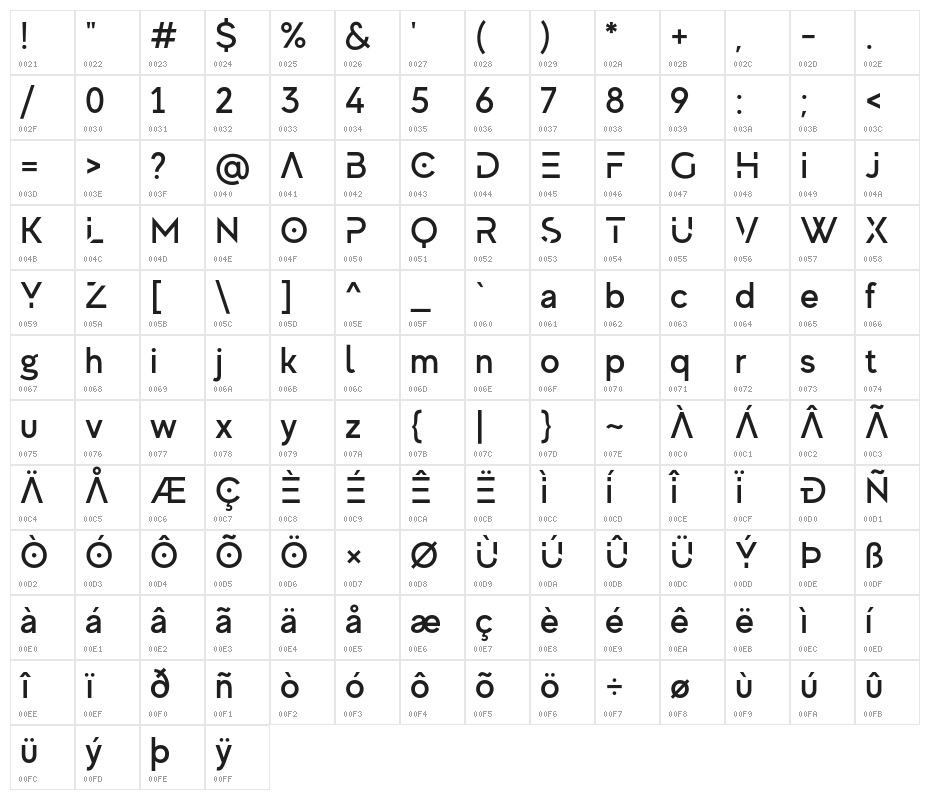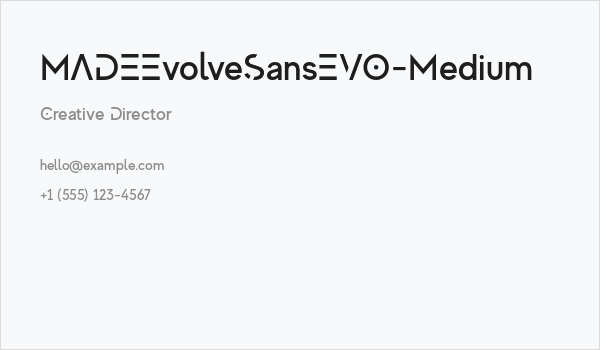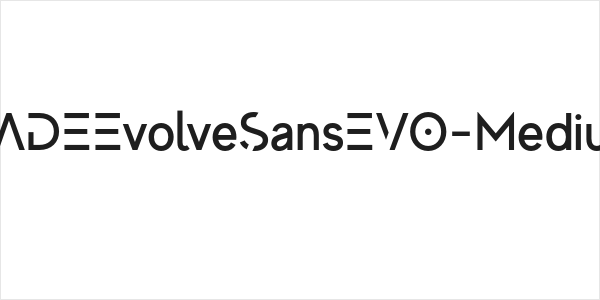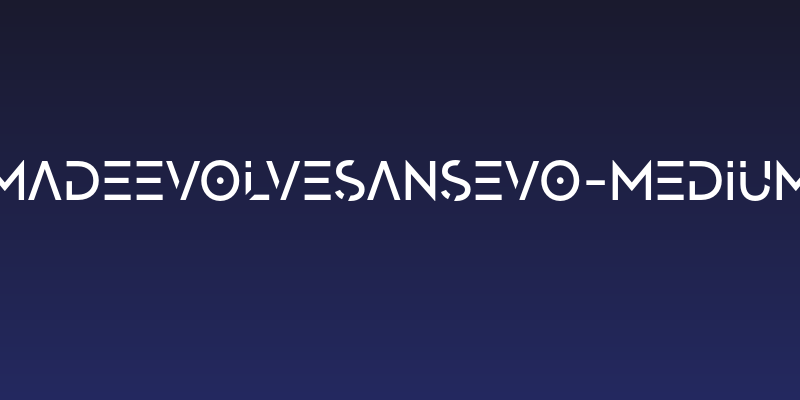
MADEEvolveSansEVO-Medium Font
MADEEvolveSansEVO-Medium Description
This font features a clean, modern design with a geometric structure. The uppercase letters are bold and striking, with unique cuts and angles that give them a futuristic feel. The lowercase letters maintain a consistent roundness, providing a harmonious balance between the characters. The numerals are clear and easy to read, matching the overall aesthetic of the font. Special characters are designed with the same attention to detail, ensuring they integrate seamlessly with the rest of the typeface. This font is versatile, suitable for both digital and print media, and can be used to create a strong visual impact.